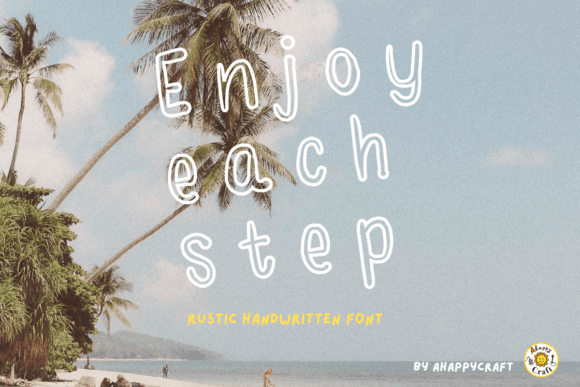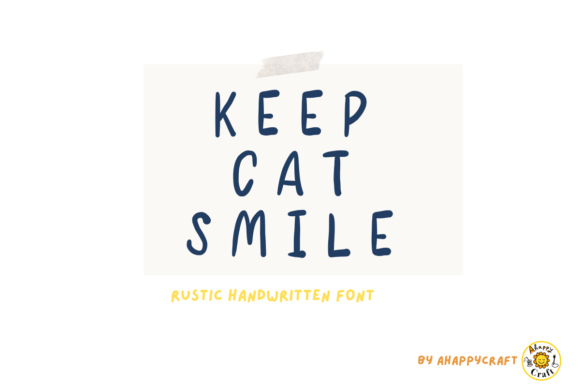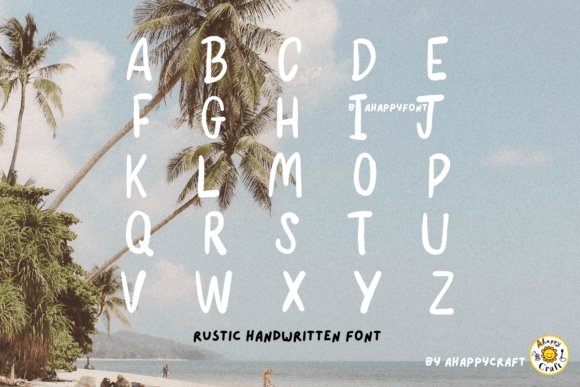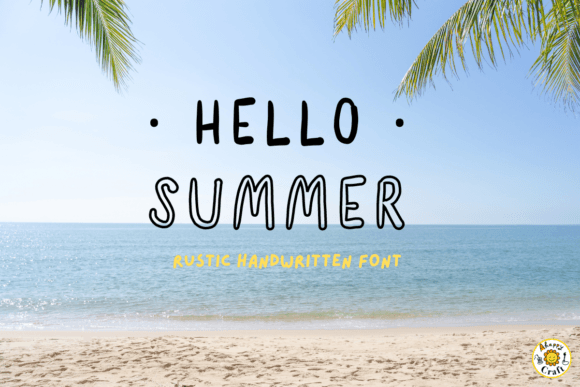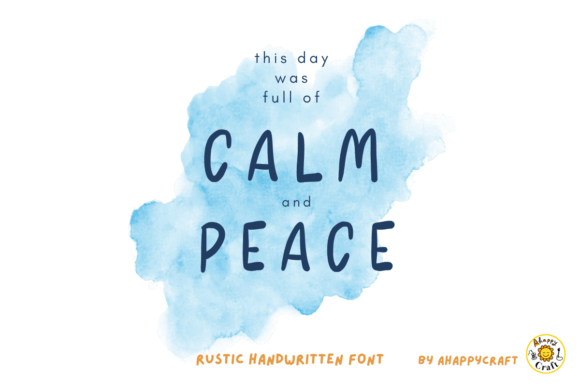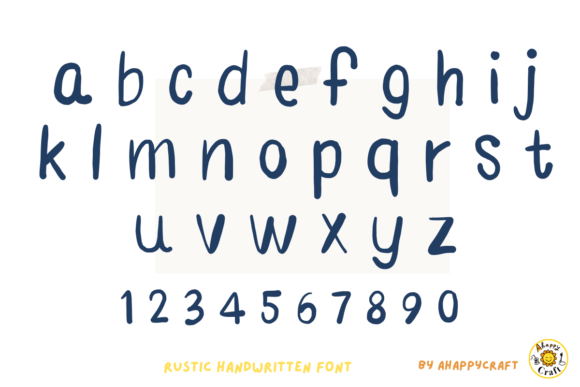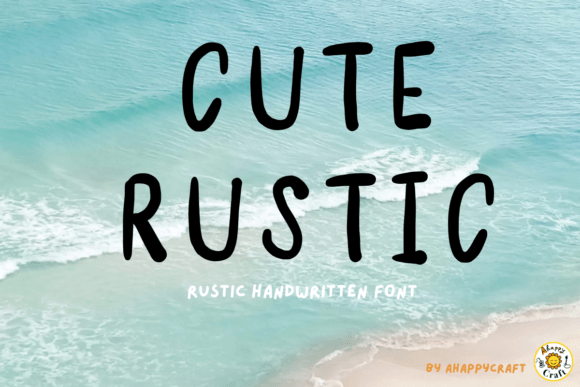
Cute Rustic Font: A Sweet and Friendly Handwritten Font for Your Designs
Are you a designer or crafter looking for a font that can add a touch of warmth and personality to your projects? Look no further than the Cute Rustic font! This sweet and friendly handwritten font is perfect for creating a wide range of designs, from rustic and vintage-inspired projects to modern and playful ones.
What Makes Cute Rustic Font So Special?
Cute Rustic is a handmade font that boasts a natural and unique style. Its irregularities and imperfections give it a charming and authentic feel that’s hard to find in digital fonts. The font’s sweet and friendly tone makes it perfect for designs that require a personal touch, such as handmade crafts, DIY projects, and small business branding.
The versatility of Cute Rustic font is one of its most attractive features. Its natural and effortless style makes it incredibly fitting to a large pool of designs, including:
• Rustic and vintage-inspired projects, such as wedding invitations, party decorations, and craft patterns
• Modern and playful designs, like children’s book illustrations, stickers, and social media graphics
• Handmade crafts, like knitting patterns, sewing tutorials, and woodworking projects
• Small business branding, including logos, packaging, and advertising materials
The only limit to what you can create with Cute Rustic font is your imagination! Whether you’re a professional designer or a DIY enthusiast, this font is sure to inspire you to create something truly special.
Key Features of Cute Rustic Font
Here are some key features that make Cute Rustic font a standout choice for designers and crafters:
• Handwritten style: Cute Rustic font is a genuine handwritten font that captures the imperfections and charm of handwriting
• Unique and natural: The font’s irregularities and imperfections give it a one-of-a-kind feel that’s perfect for adding personality to your designs
• Versatile: Cute Rustic font can be used for a wide range of designs, from rustic and vintage-inspired projects to modern and playful ones
• Easy to read: Despite its handwritten style, Cute Rustic font is easy to read and understand, making it perfect for body text and headings
Tips for Using Cute Rustic Font
Here are some tips for getting the most out of Cute Rustic font:
• Pair it with other fonts: Cute Rustic font pairs well with other fonts, such as sans-serif fonts for a modern look or serif fonts for a vintage feel
• Experiment with colors: The font’s natural style looks great in a variety of colors, from earthy tones to bright and bold hues
• Add embellishments: Consider adding embellishments, such as flowers or leaves, to give your designs an extra touch of personality
Cute Rustic font is a sweet and friendly handwritten font that’s perfect for designers and crafters looking to add a touch of warmth and personality to their projects. Its natural and unique style makes it incredibly versatile, and its ease of use makes it accessible to everyone. Whether you’re creating rustic and vintage-inspired projects or modern and playful ones, Cute Rustic font is sure to inspire you to create something truly special. So why not give it a try and see what amazing designs you can create?